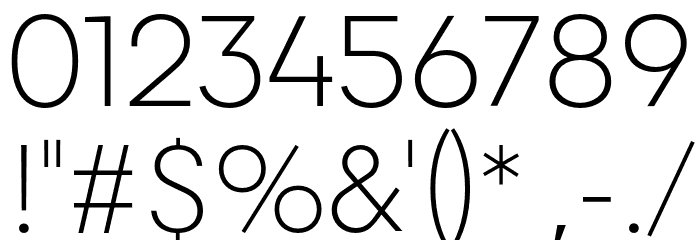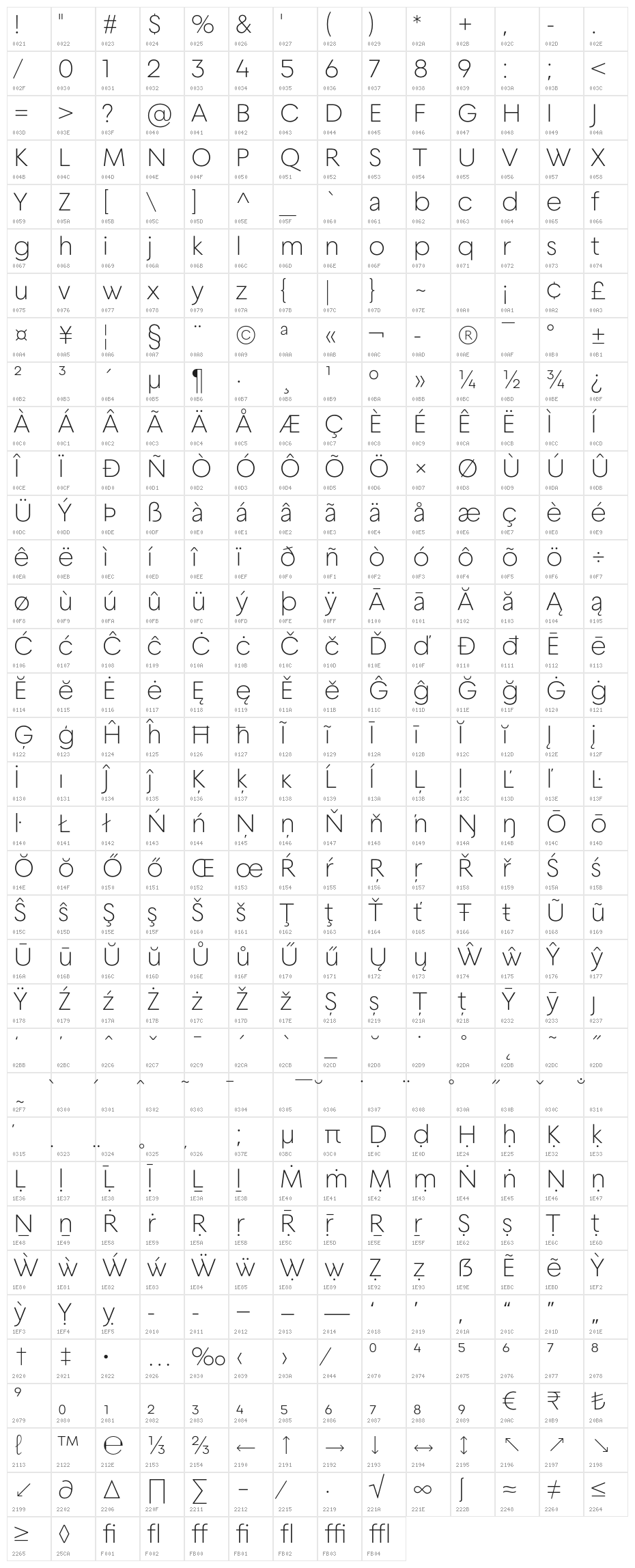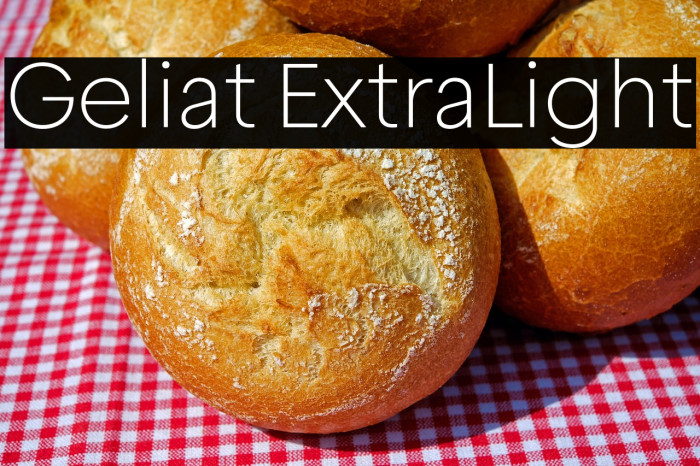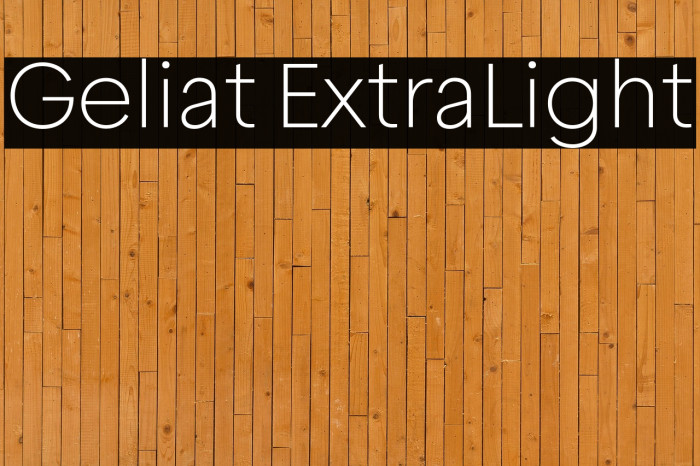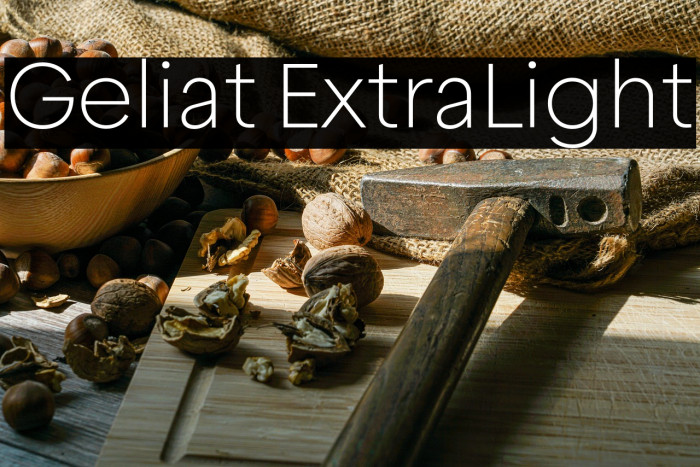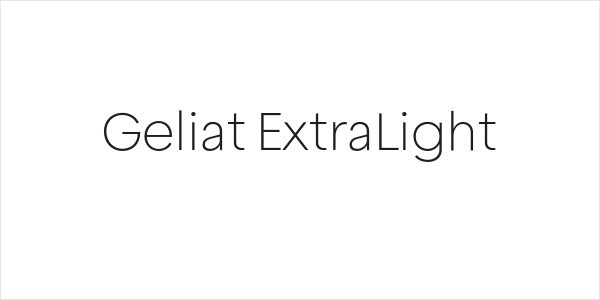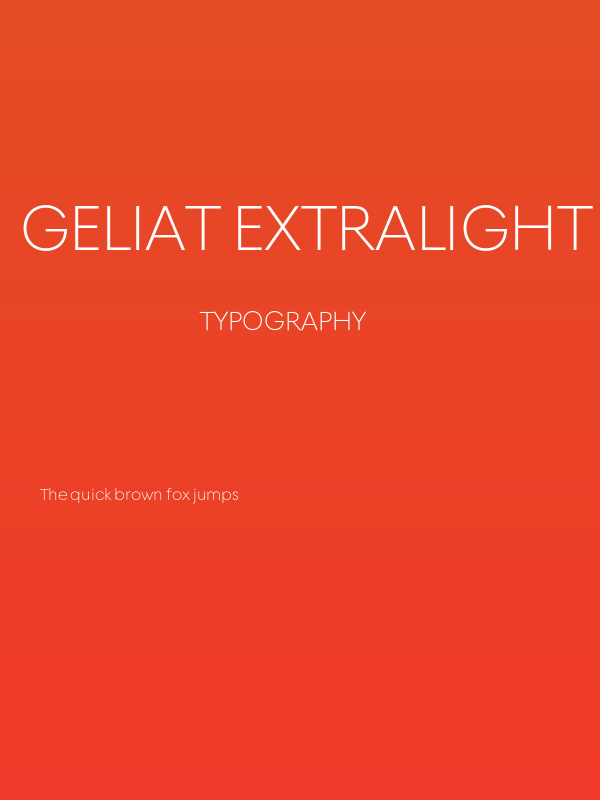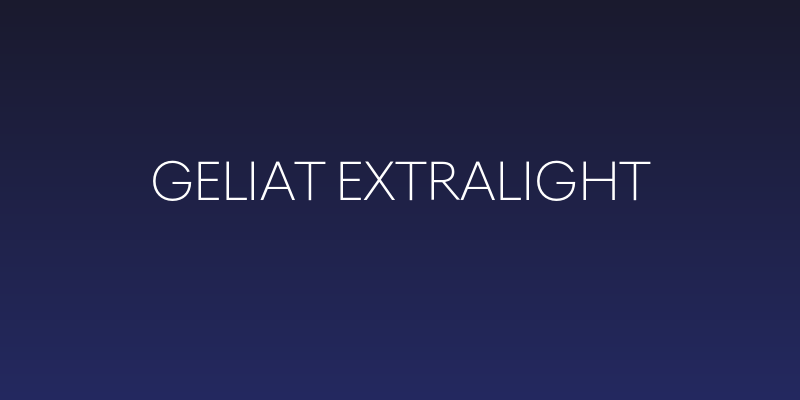
Geliat ExtraLight Font
Geliat ExtraLight Description
This font features a clean and modern sans-serif design with an extra light weight, offering a sleek and minimalist appearance. The characters are evenly spaced, contributing to a harmonious and balanced look. The uppercase and lowercase letters maintain a consistent style, with smooth curves and straight lines that enhance readability. The numerals are clear and distinct, making them suitable for various applications. Special characters are included, providing versatility for different design needs.
| Proposed Projects | Ideal for modern branding projects, minimalist website designs, and clean editorial layouts. |